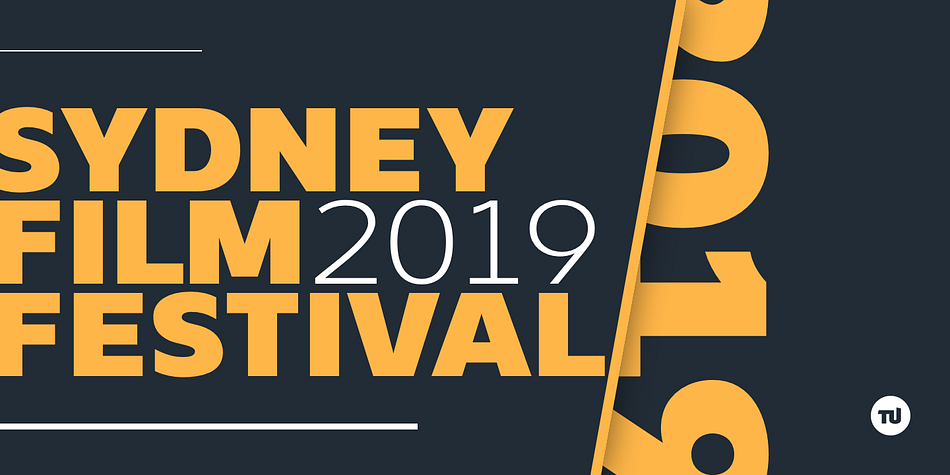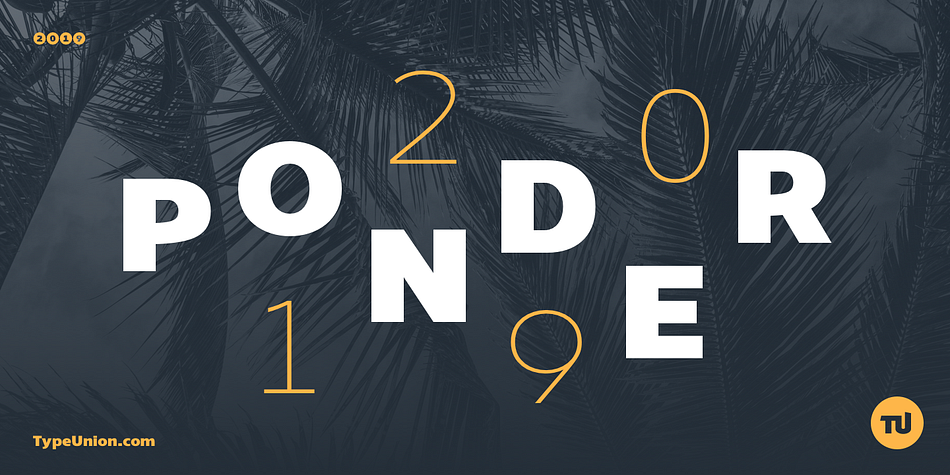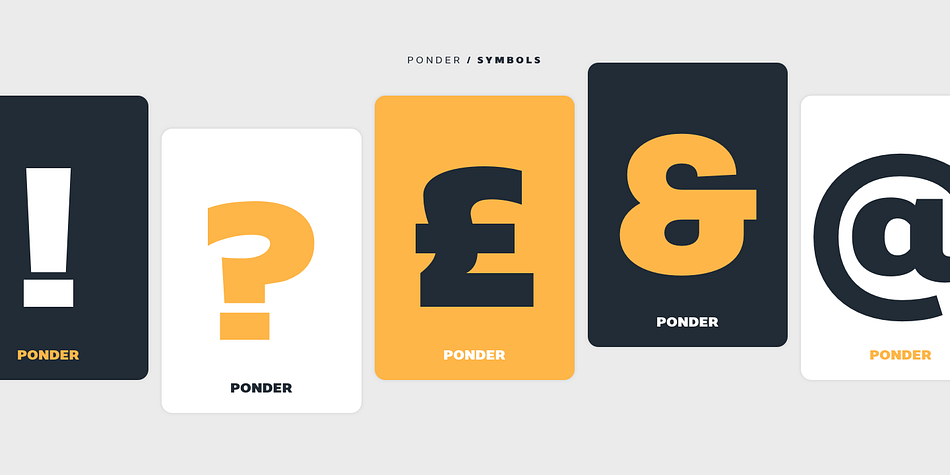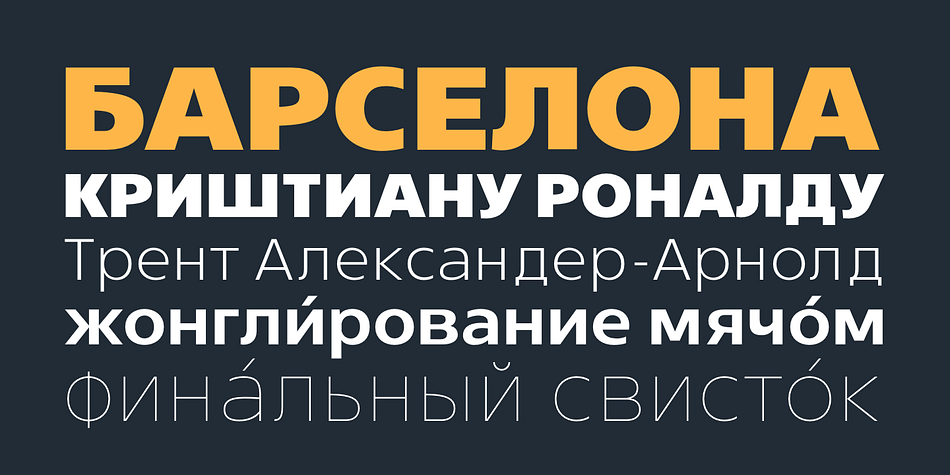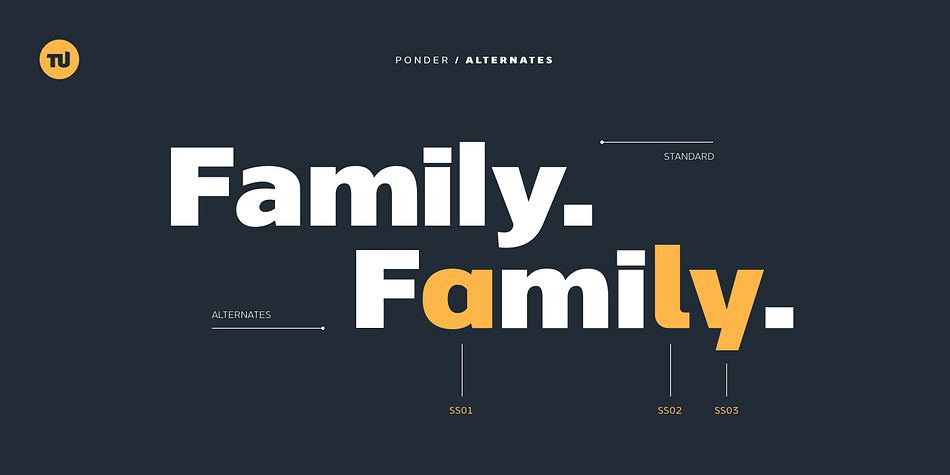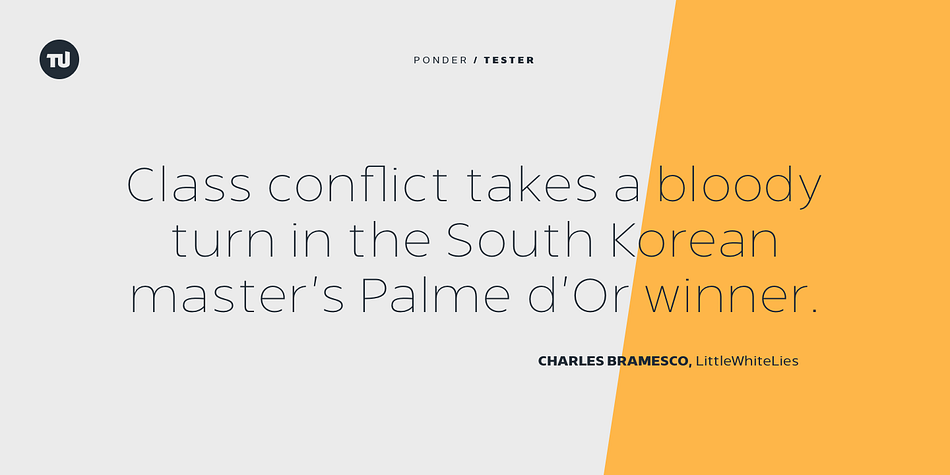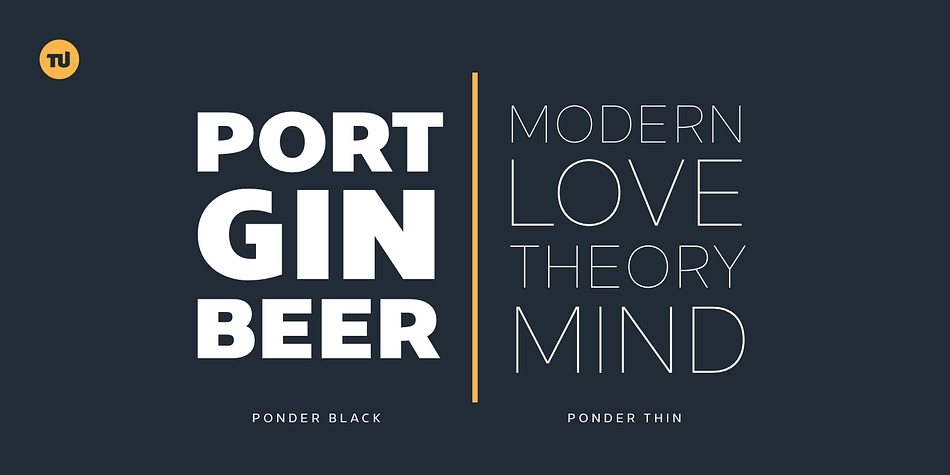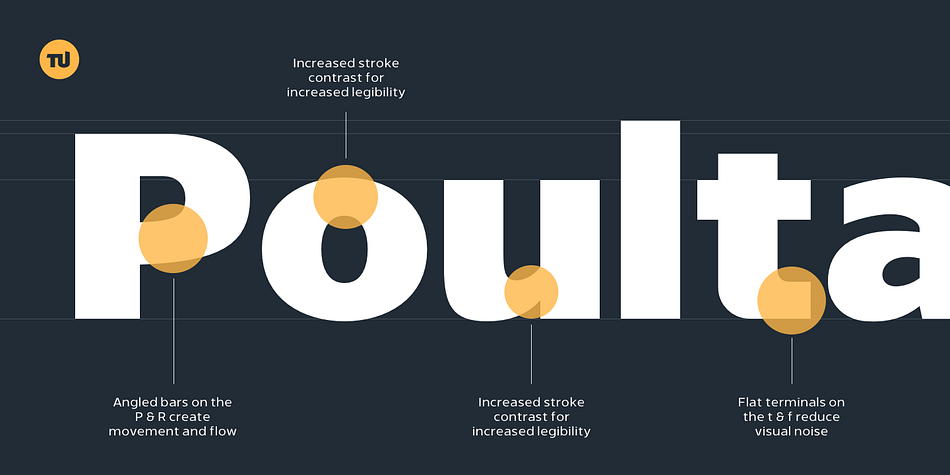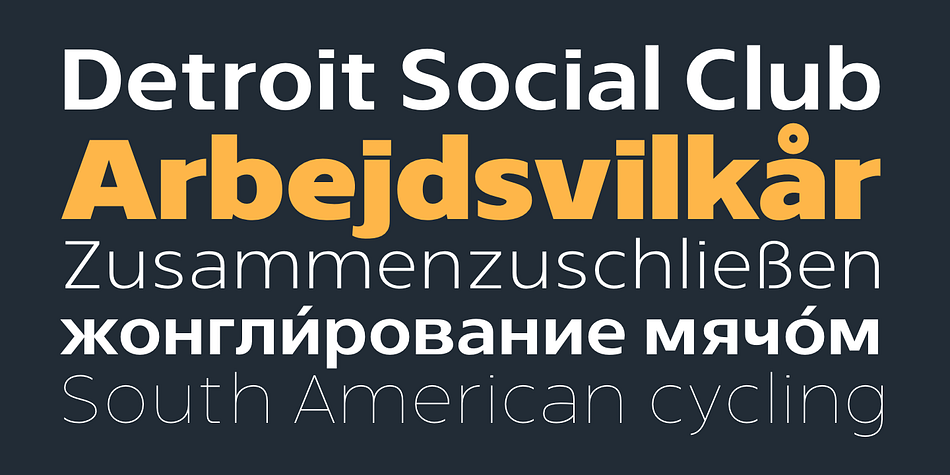
Designed by Dan Jones, Ponder is a sans serif font family. This typeface has sixteen styles and was published by TypeUnion.
This is Ponder. A modern sans carefully crafted to be a versatile typeface for the modern world. Featuring over 650 glyphs, Ponder includes stylistic alternates for the a, l, y and & characters to provide two uniquely styled design approaches.
From contrasting strokes on the heavier weights to the angled bars on the P & R, Ponder has a unique feel that will give your brand or project that stand out quality.
Ponder features extensive language support for Latin & Cyrillic as well as many opentype features such as stylistic alternates, ligatures and numbers (Tabular, Oldstyle & Circled).